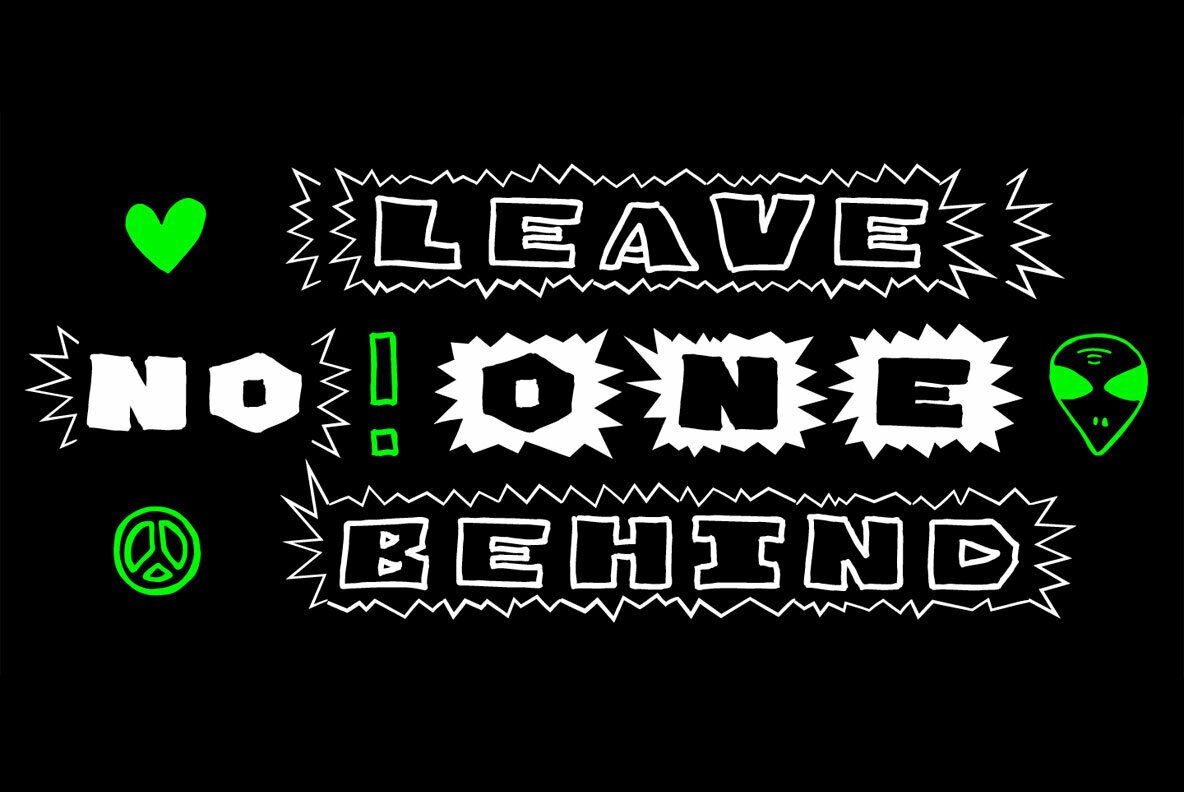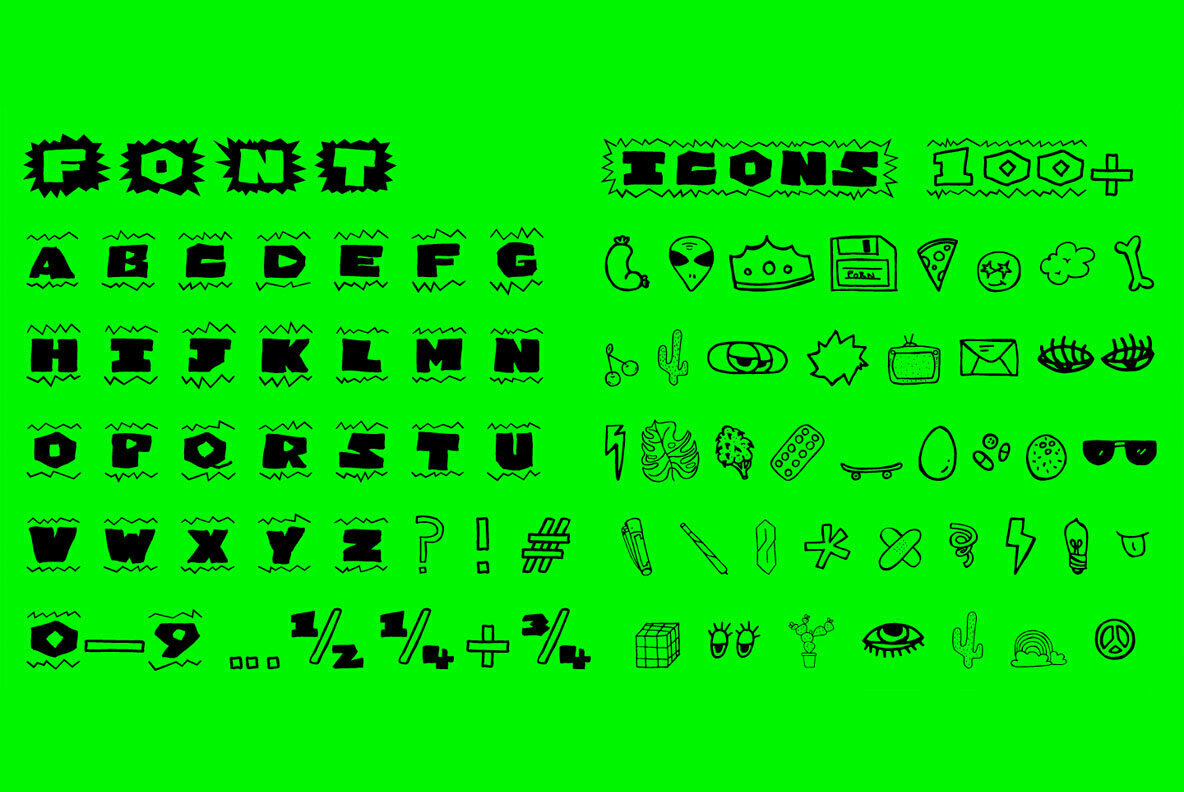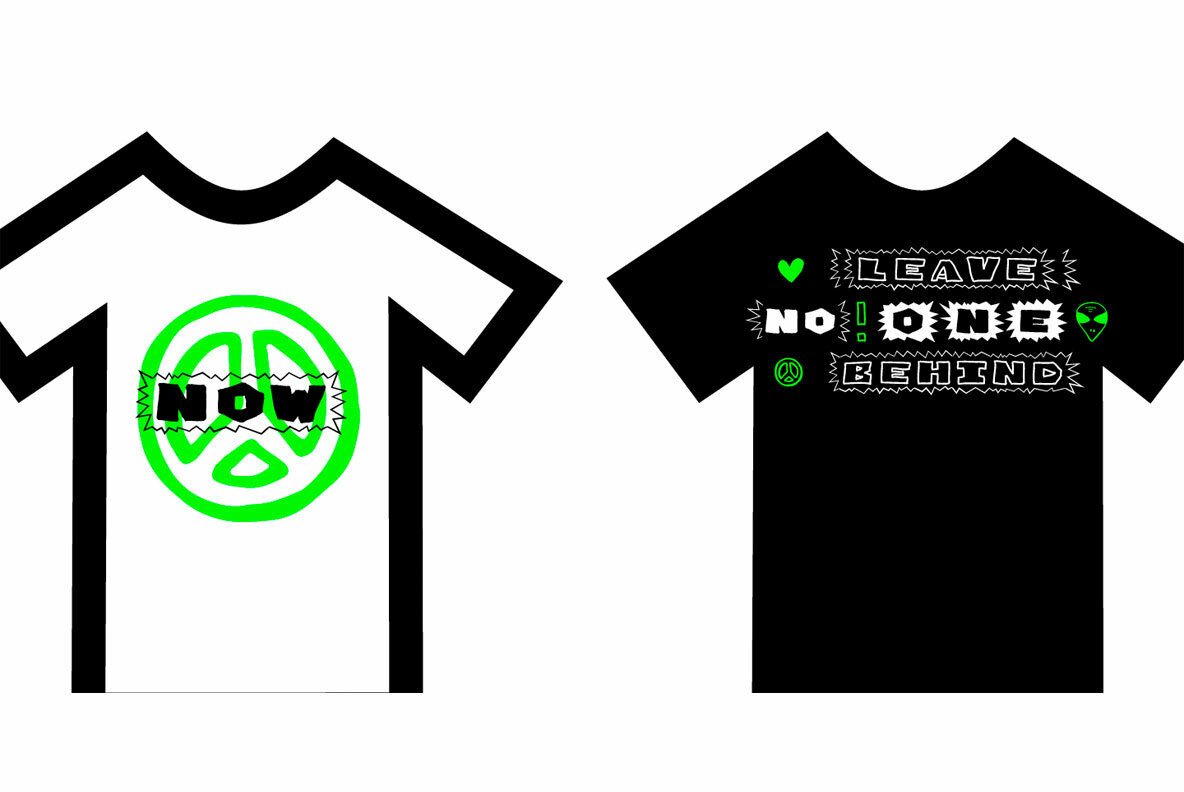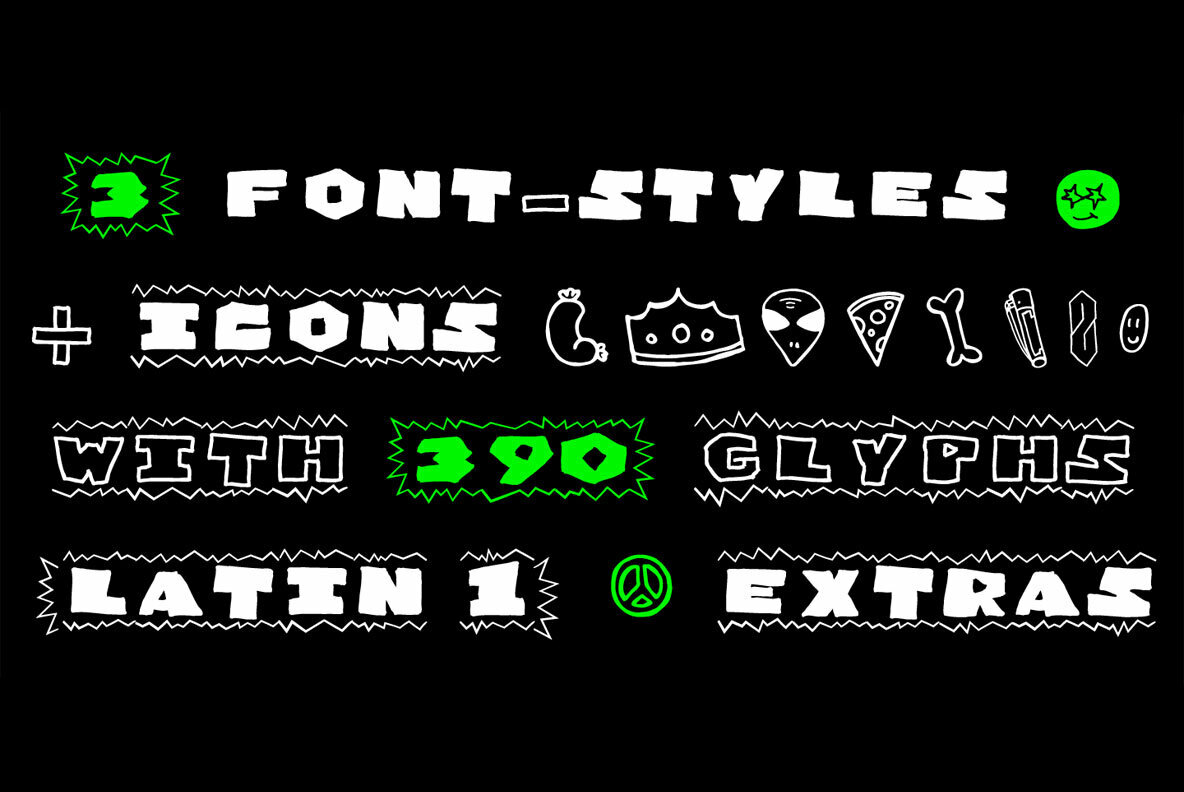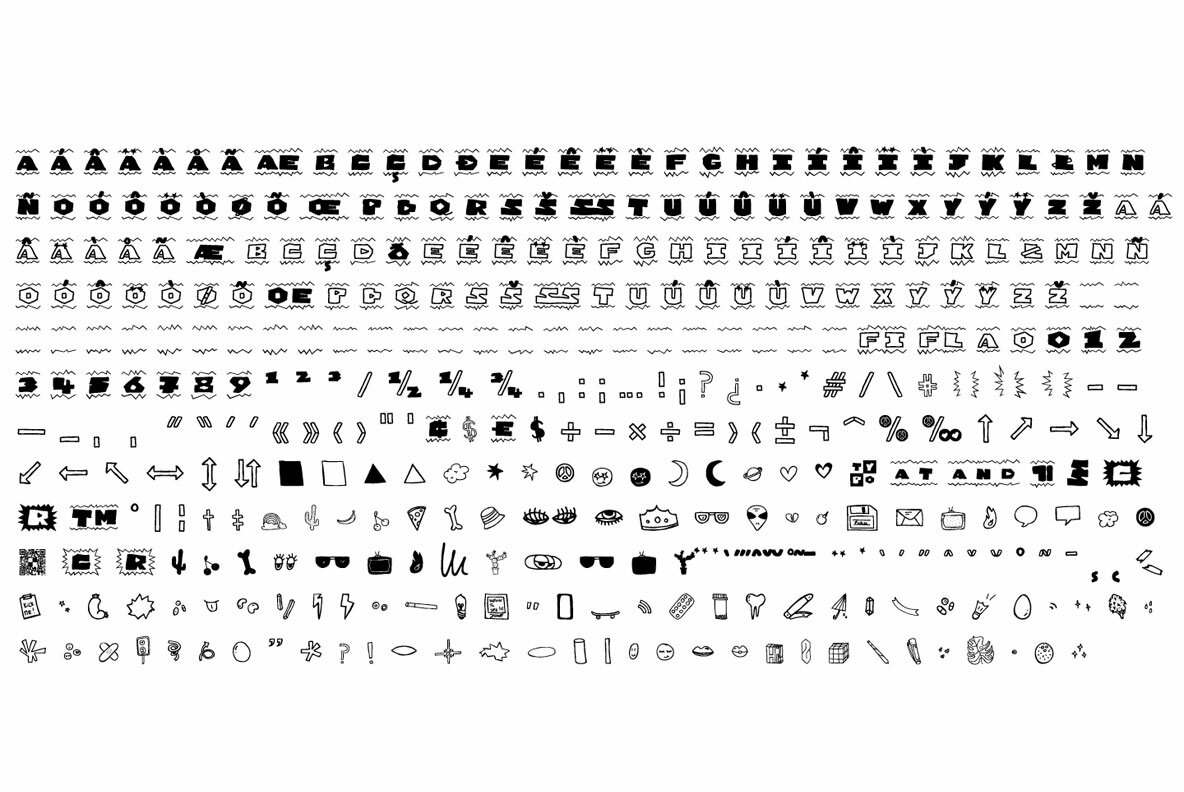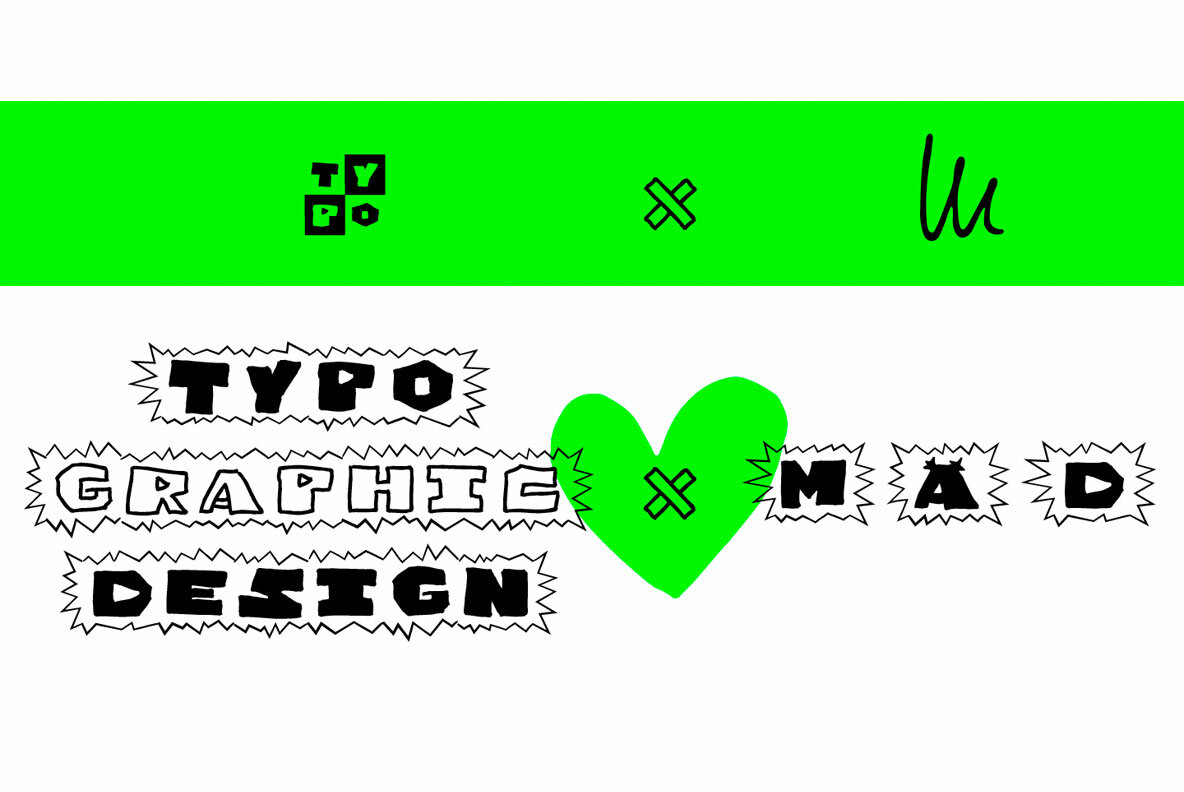
One United Font
The typeface One United Font is designed from 2020 for the font foundry Typo Graphic Design by mäd • madeleine maros × Manuel Viergutz as a political statement #leavenoonebehind
The display font is inspired in the past and present.
3 font-styles (Bubble, Bubble Behind, Outline) + 1 icon-style with 390 glyphs (Adobe Latin 1) incl. 100+ decorative extras like icons, arrows, dingbats, emojis, symbols, geometric shapes (type the word #LOVE for or #SMILE for as OpenType-Feature dlig) and stylistic alternates (3 stylistic sets).
For use in logos, magazines, posters, advertisement plus as webfont for decorative headlines. The font works best for display size.